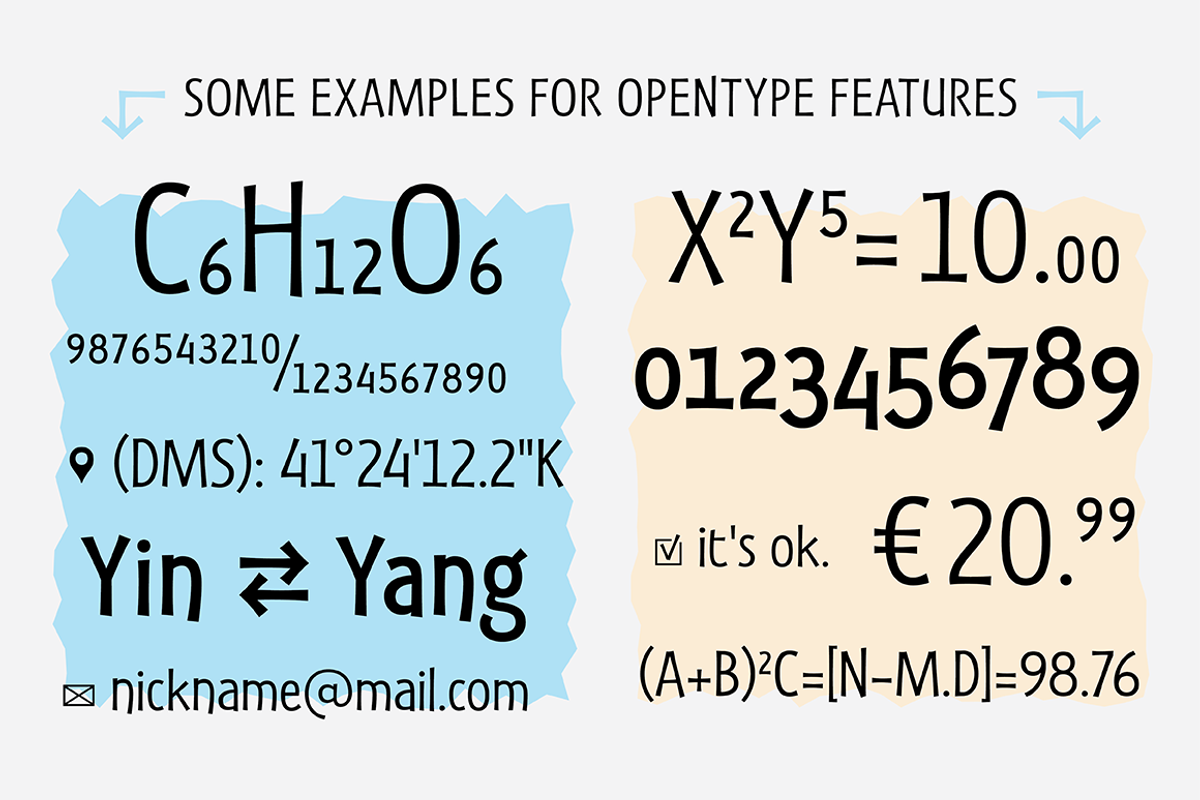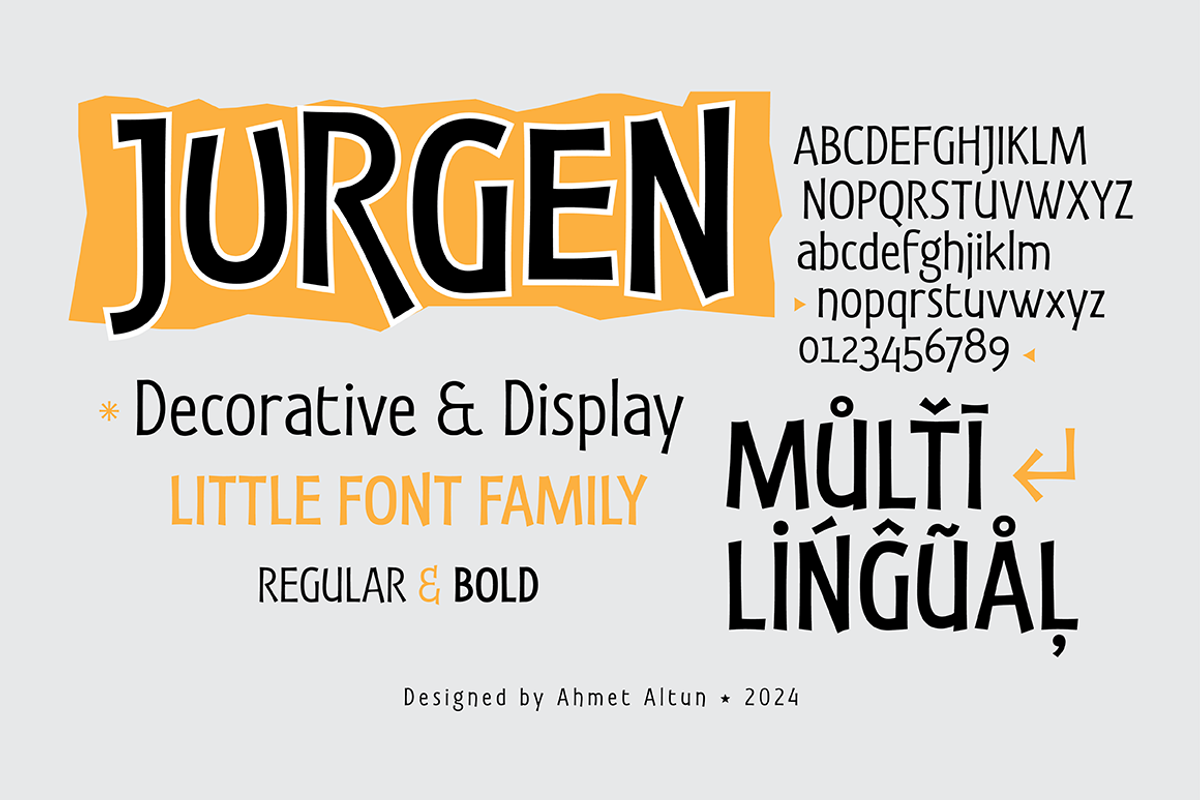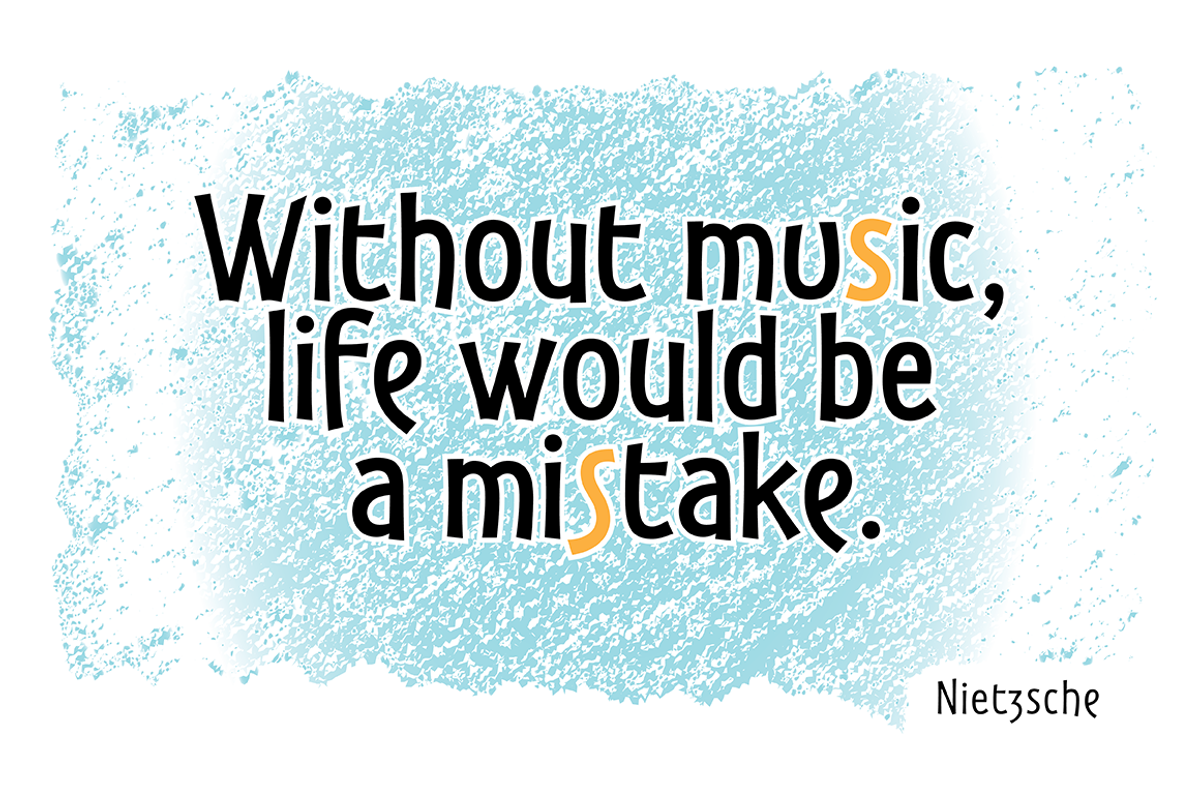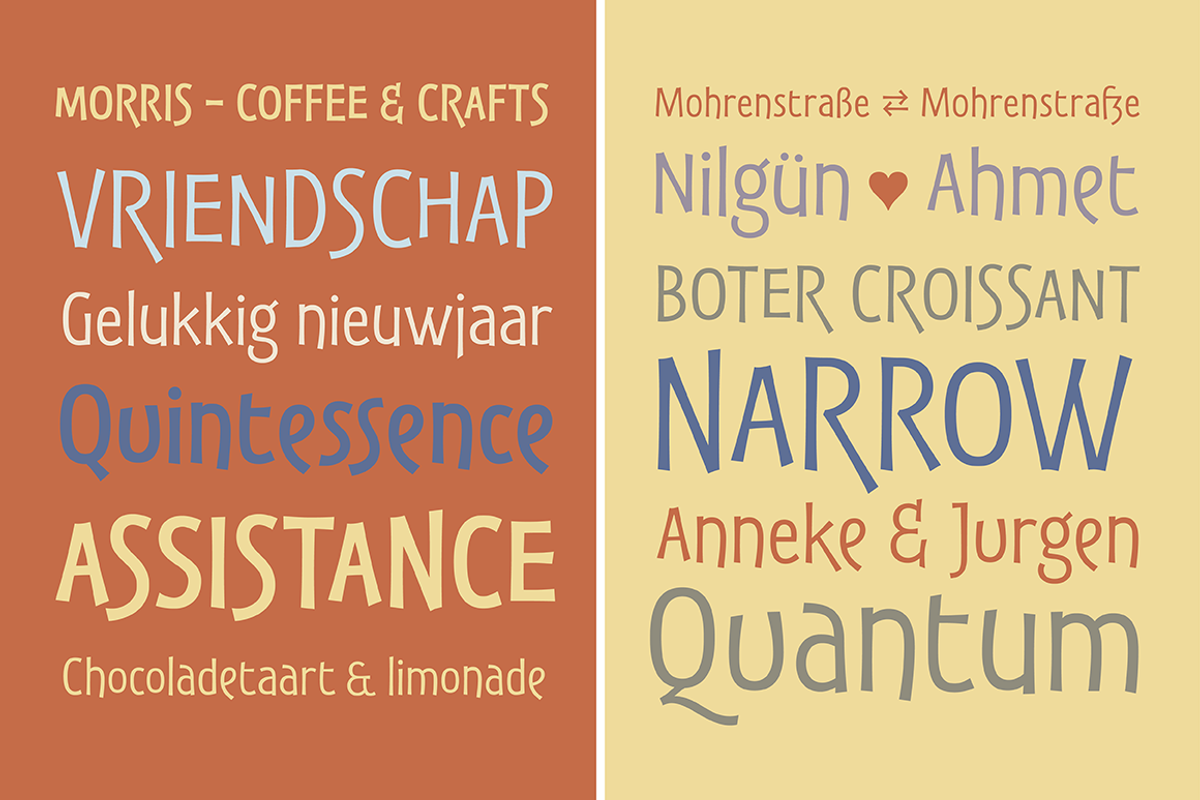
Jurgen Font Family
The Jurgen font family consists of two fonts, regular and bold. Inspired by the wonderful lettering of Jurgen Vercaemst, a calligraphy artist from Belgium. The Jurgen font family offers wide opentype support. It allows you to create unusual looking words and sentences with alternative letter combinations in different sizes. It can be an interesting and unusual font choice for t-shirt printing, posters, invitations and all kinds of designs.